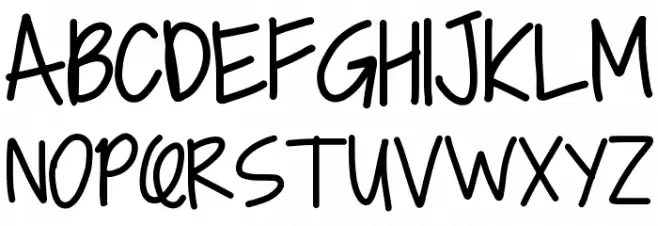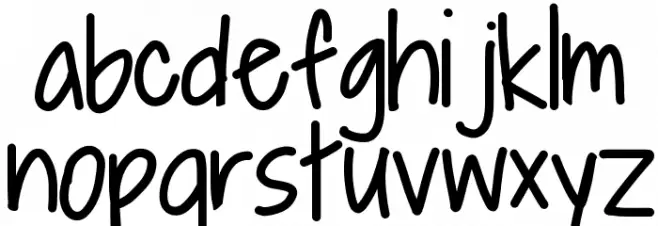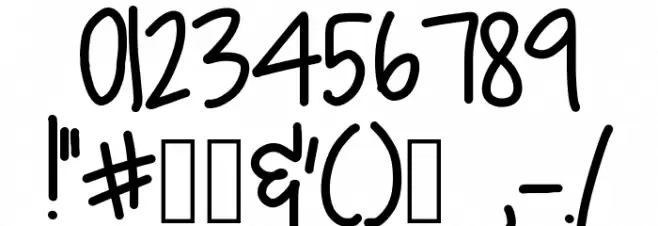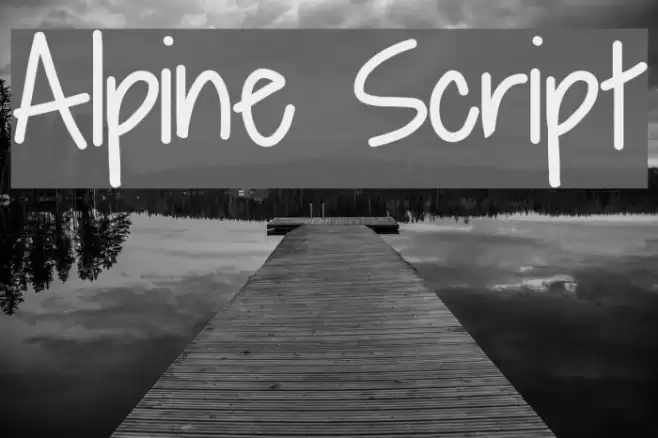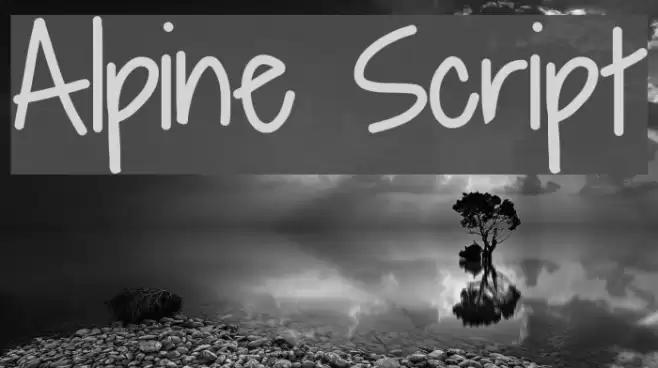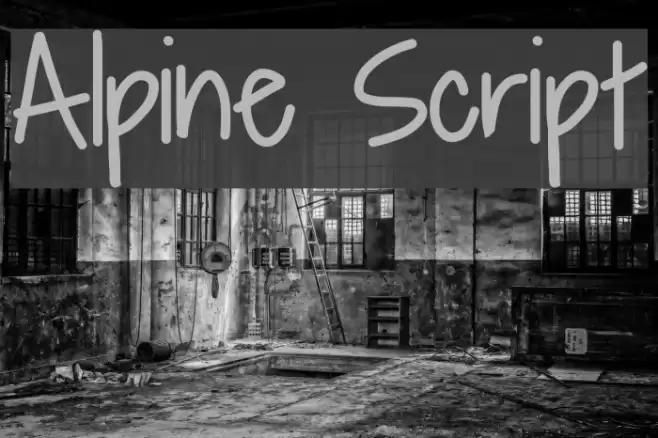
Alpine Script
This font features a playful and casual handwritten style, characterized by its smooth, flowing lines and slightly irregular shapes. The uppercase letters are bold and dynamic, while the lowercase letters maintain a consistent rhythm and balance. The numbers are clear and legible, with a slight tilt that adds to the overall informal feel. Special characters are well-integrated, maintaining the font's cohesive look. The font's friendly and approachable appearance makes it suitable for a variety of creative projects.
A playful, casual handwritten font with smooth, flowing lines.
- Proposed Projects: Ideal for greeting cards, invitations, children's books, and casual branding.
- Overall Style: Casual
- Use Case: Headlines, Logos, Informal Text